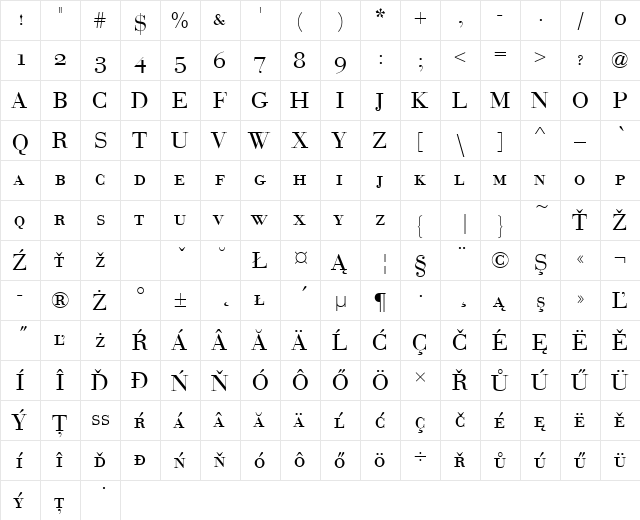
BauerBodSCDEEReg Regular
Design Context for BauerBodSCDEEReg Typeface
BauerBodSCDEEReg is a composed and adaptable typeface that performs quietly and consistently across a wide range of design contexts.